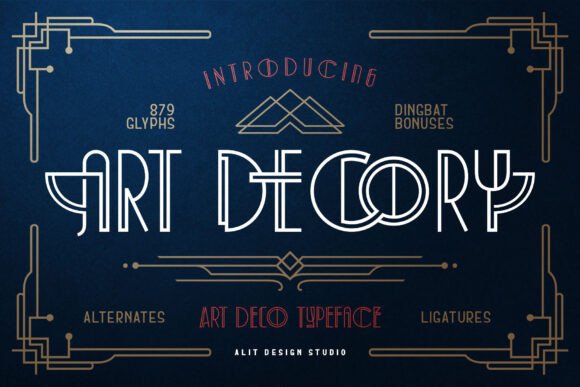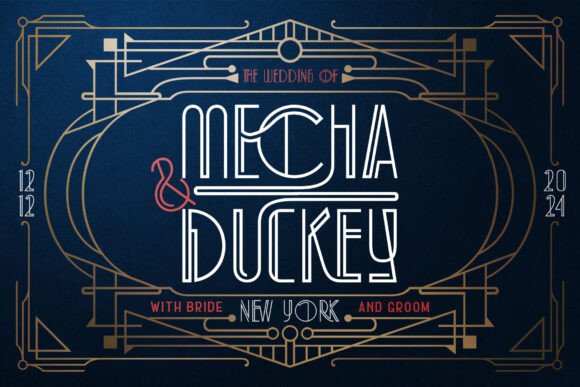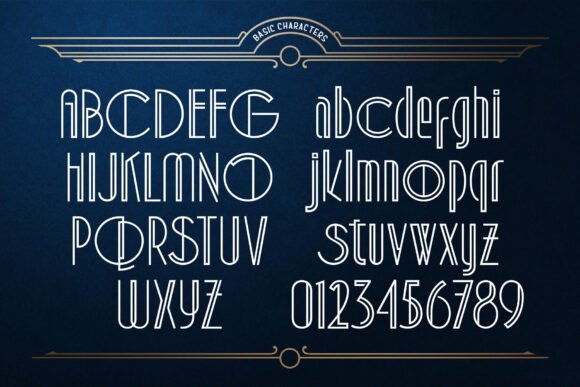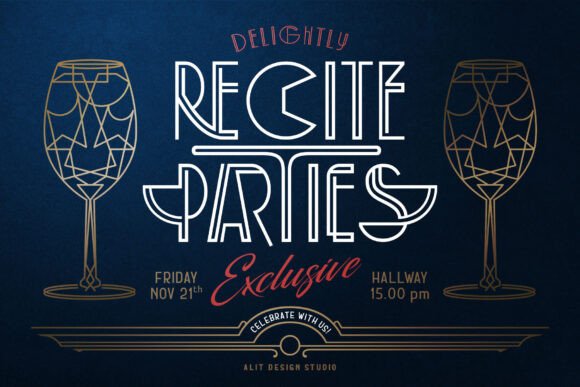
Art Decory Font
About the Art Decory Font
Experience the unique personality of Art Decory Font, a font designed for impact. Art Decory Typeface is an elegant and sophisticated font inspired by the opulence and geometry of the Art Deco movement, with a modern twist. Its meticulously designed features make it perfect for adding a sense of timeless luxury and bold creativity to any design project.
Art Decory excels in headlines, logos, and short impactful text for branding projects, particularly those aiming for a luxurious or vintage aesthetic. It’s ideal for posters, packaging design, and even invitation cards where its bold strokes and geometric forms make a statement. However, its highly stylized nature makes it unsuitable for body text or long paragraphs; readability suffers at smaller sizes.
Consider pairing Art Decory with a clean sans-serif like Helvetica Neue for a modern contrast, or a classic serif like Garamond for a more traditional feel. A script font such as Playfair Display can add a touch of vintage elegance, while a geometric sans-serif like Futura would emphasize the font’s inherent geometric structure.
The Art Decory typeface projects a bold, sophisticated, and undeniably modern personality, perfectly suited for brands emphasizing luxury, heritage, or a timeless sense of style.
Art Decory Font Usage Examples
Art Decory Font Example